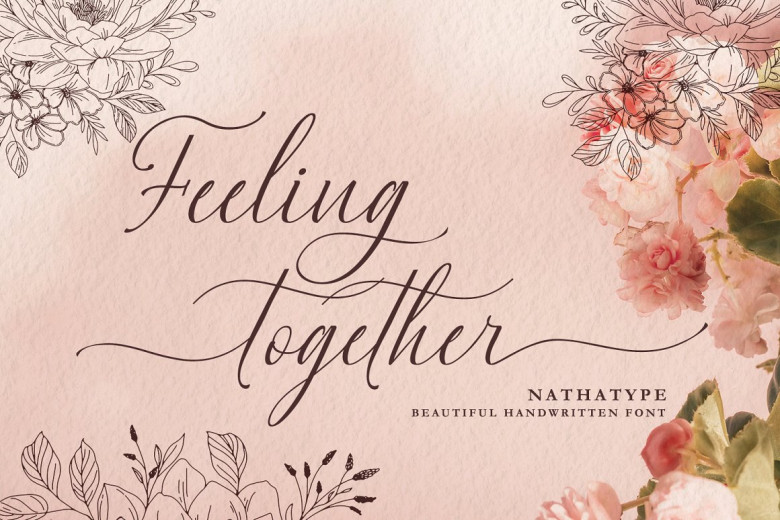
Feeling Together Font
Feeling Together was created with care to present an organic, unorganized aesthetic. Each letter features thick and thin wipes for contrast. Feeling Together works great when used with large text sizes for maximum legibility; features are also provided here.
Feeling Together Handwritten Font